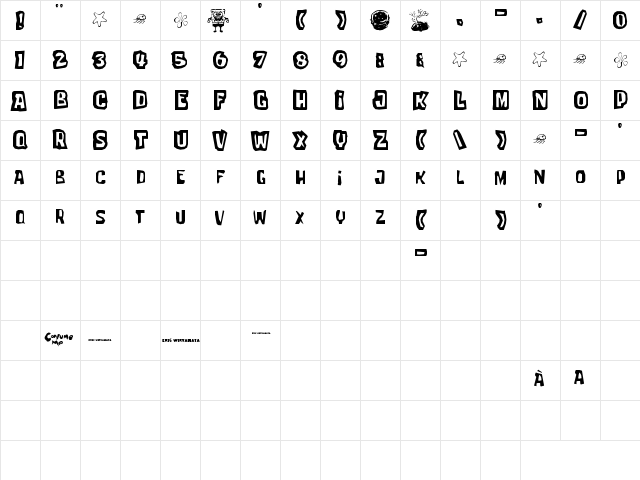
tartarsauce_erc Regular
Design Context for tartarsauce_erc Typeface
tartarsauce_erc is a composed and adaptable typeface that performs quietly and consistently across a wide range of design contexts.